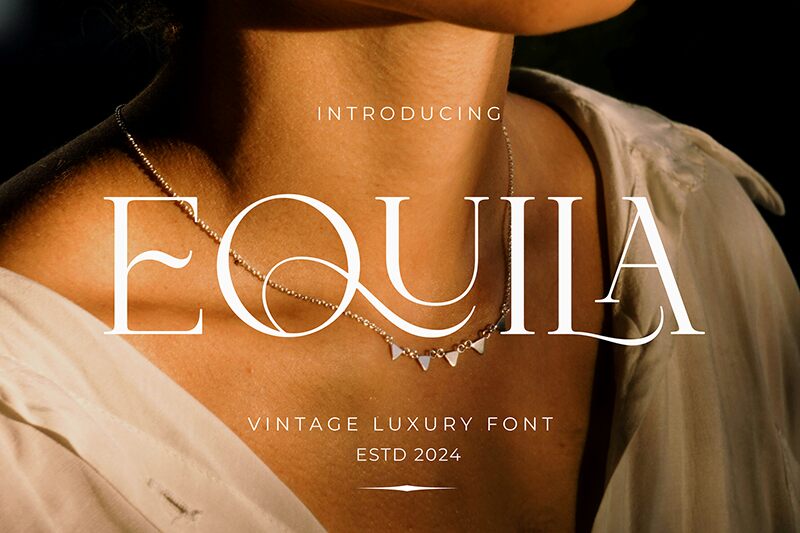
Equila
Equila serif font is a beautiful set of characters with many features. It’s created and shared by ToniStudio and can be used for a multitude of projects.
For instance, it’s perfect for invitations and greetings, brochures, business cards, branding and packaging designs, magazines, newspapers, banners, flyers, posters, book titles and covers, blogs, social media posts, branding and packaging designs, etc.